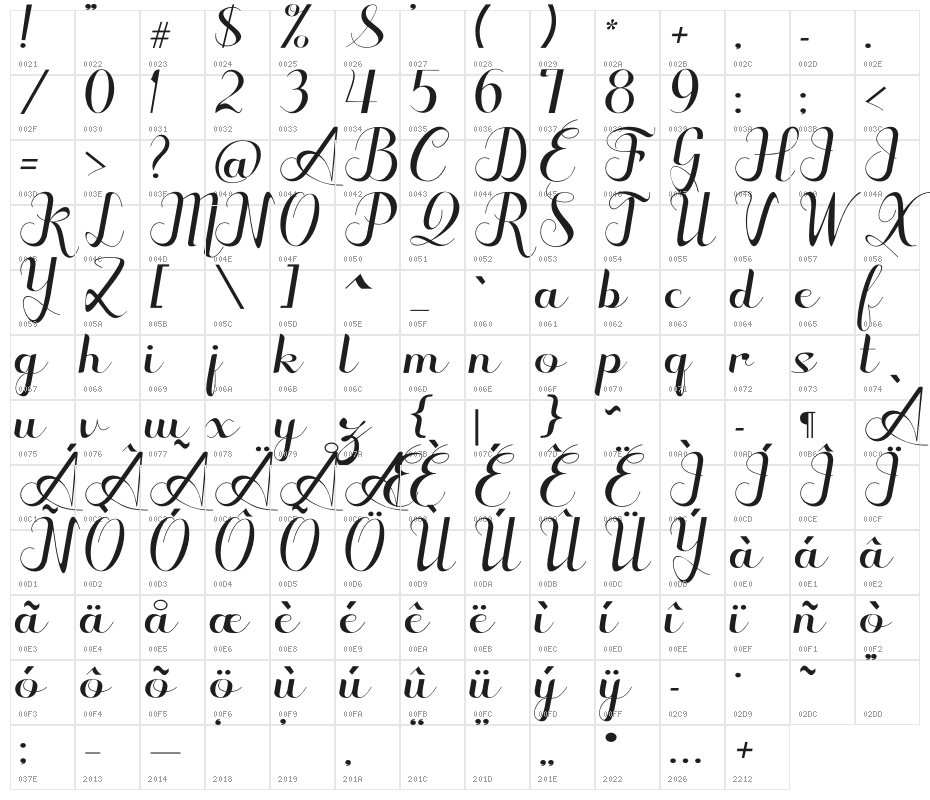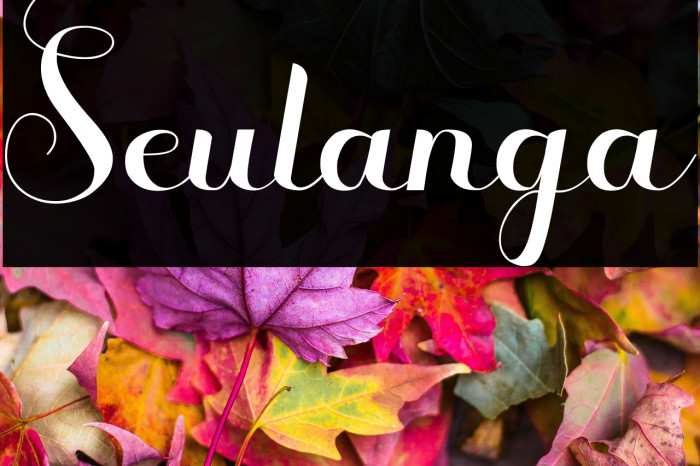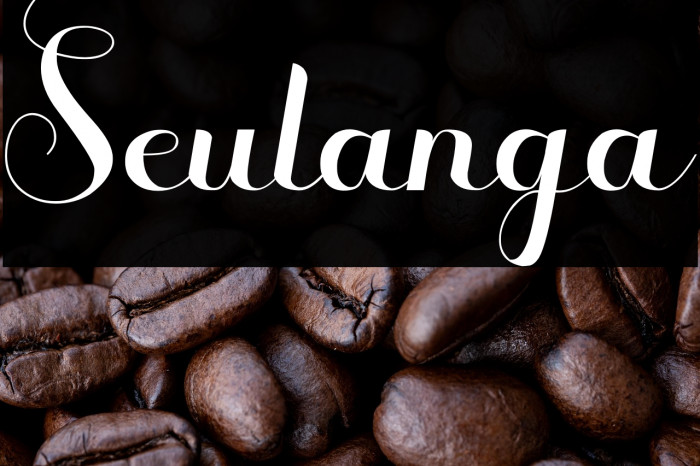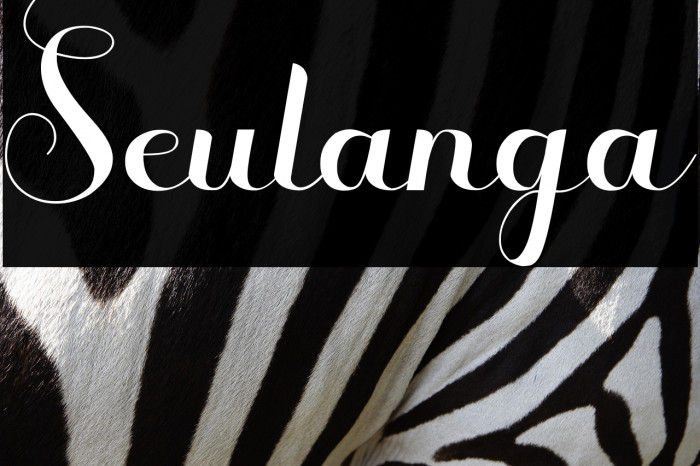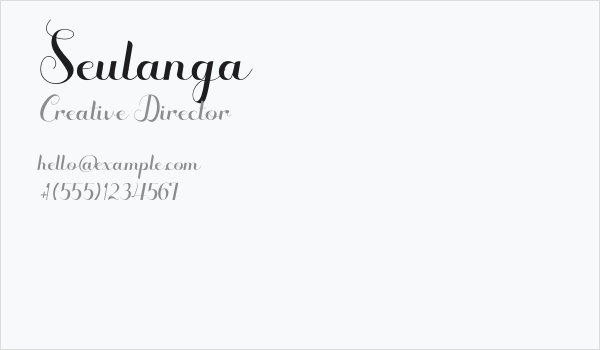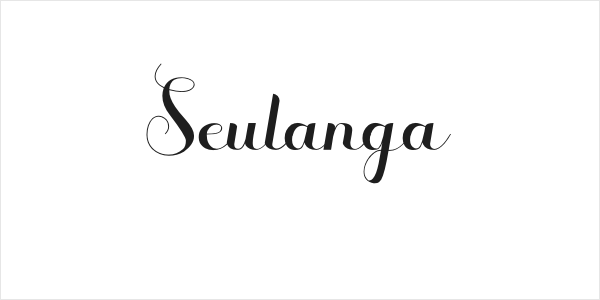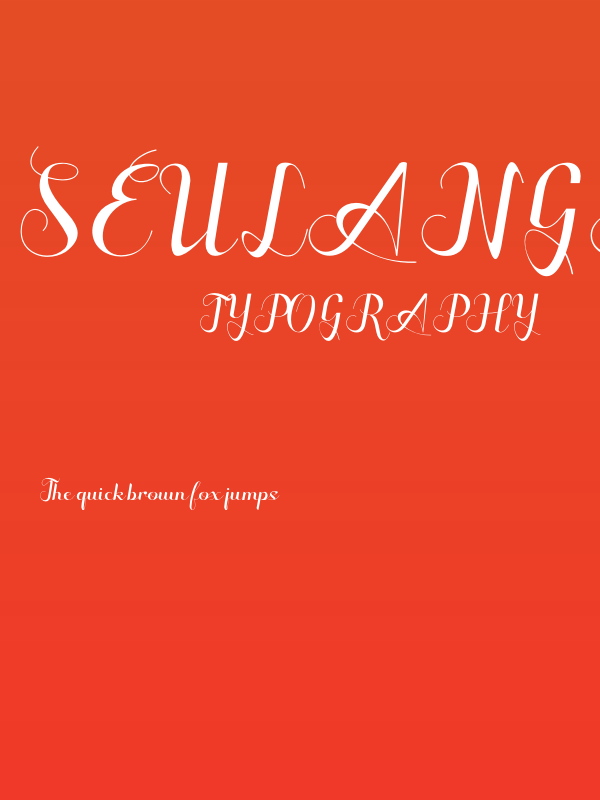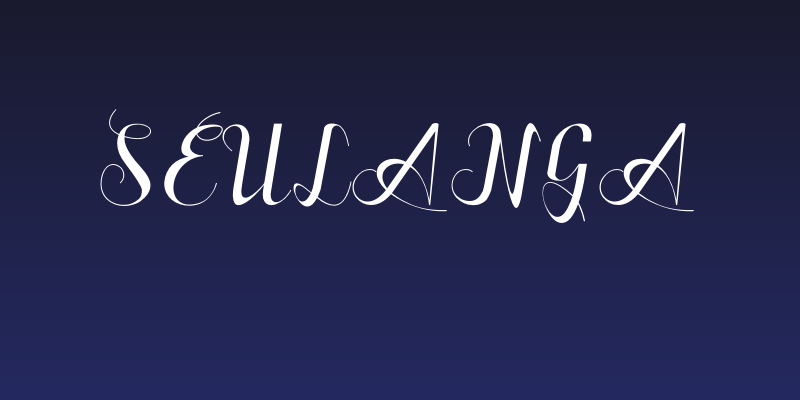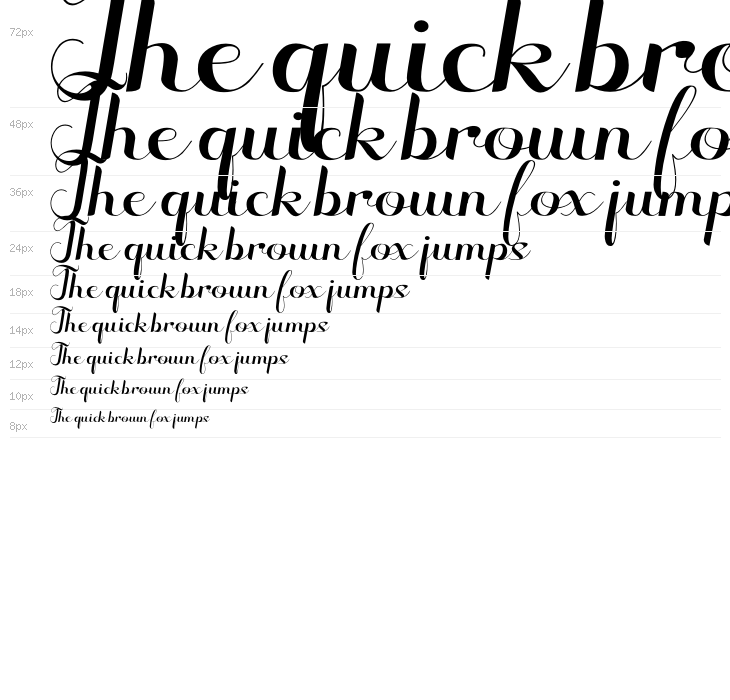
Seulanga Font
Seulanga Description
This elegant script font features a sophisticated and flowing design, characterized by its graceful curves and intricate swashes. The uppercase letters are particularly ornate, with flourishes that extend beyond the baseline, adding a touch of luxury and refinement. The lowercase letters maintain a consistent style, offering a smooth and connected appearance that enhances readability while preserving the font's decorative nature. The numerals are bold and stylish, complementing the overall aesthetic with their sleek lines. Special characters are thoughtfully designed, maintaining the font's cohesive look. This font exudes a sense of elegance and is perfect for projects that require a touch of class and sophistication.